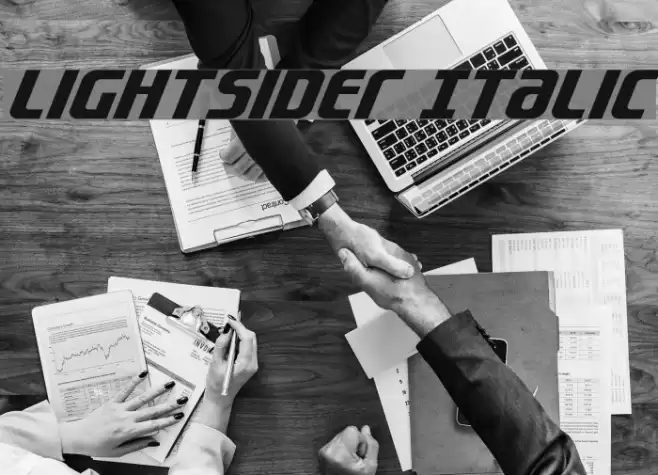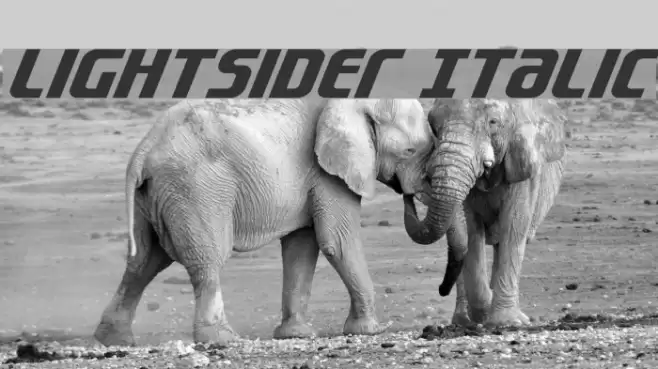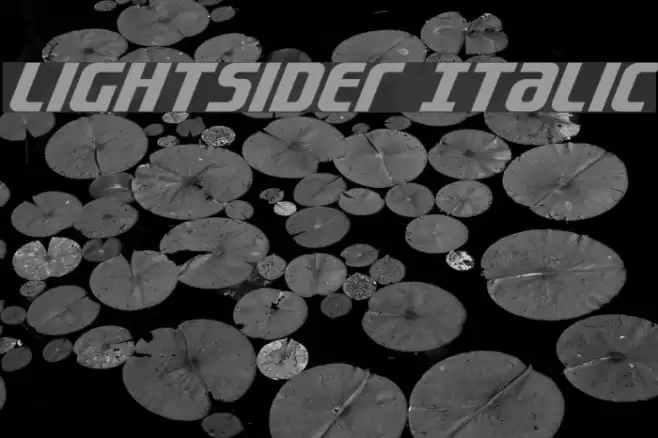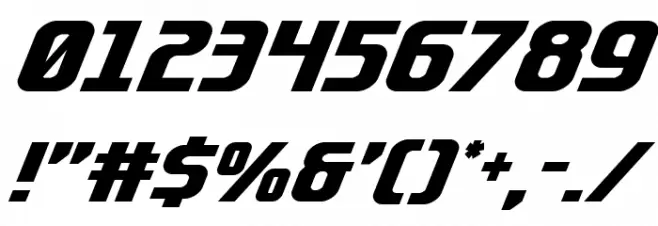
Lightsider Italic Font
Lightsider Italic Description
This font features a dynamic and modern design with a strong italic slant, giving it a sense of motion and energy. The characters are bold and slightly condensed, with a uniform stroke width that maintains consistency across all letters and numbers. The angular cuts and geometric shapes lend a futuristic and tech-inspired feel, making it ideal for projects that require a contemporary and edgy look. The font includes a full set of uppercase and lowercase letters, numerals, and a variety of special characters, ensuring versatility for different design needs.
A bold, italic font with a modern, tech-inspired design from Uncategorized fonts.
- Proposed Projects: Ideal for technology branding, sports team logos, dynamic posters, and futuristic web design.